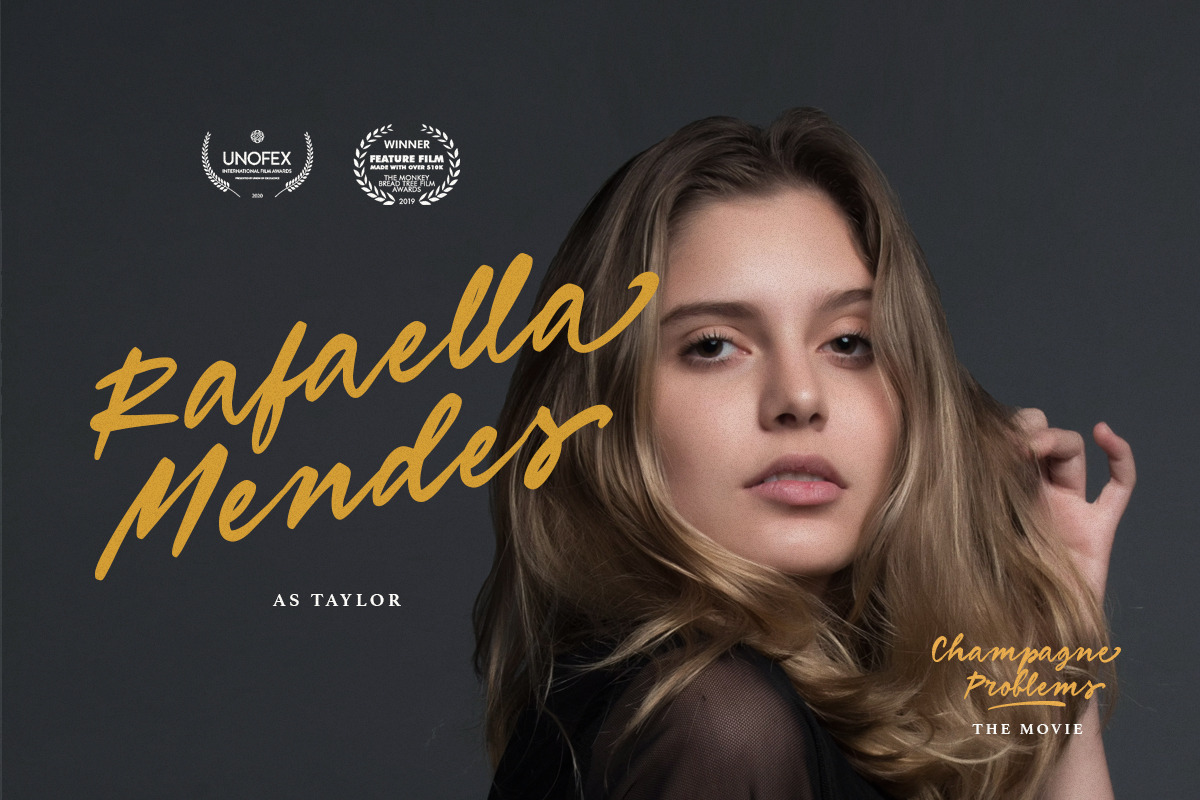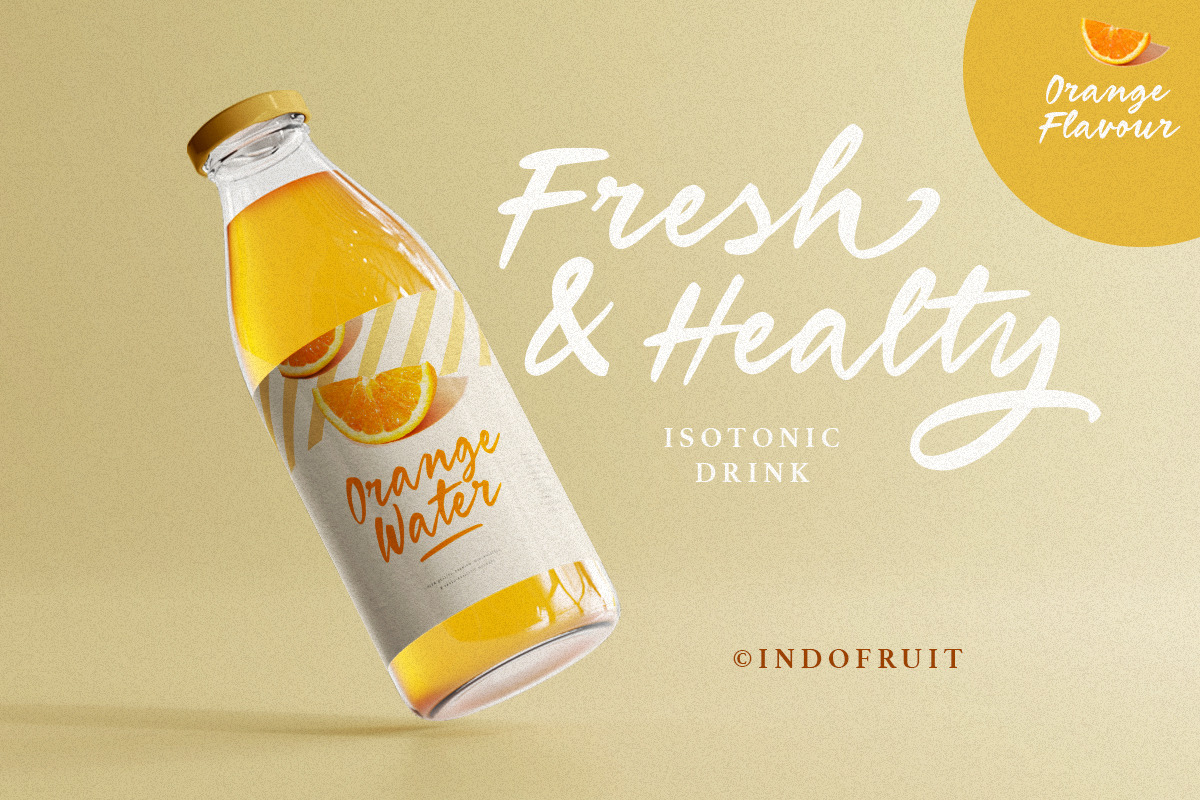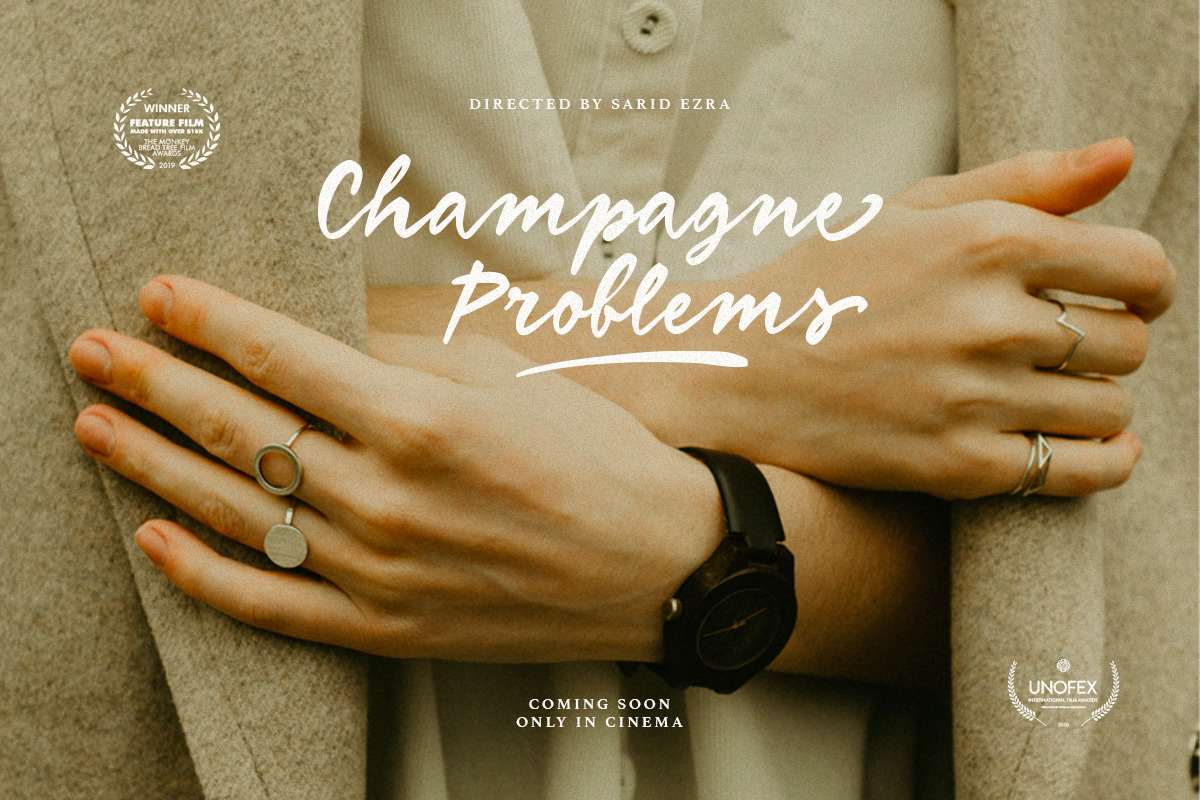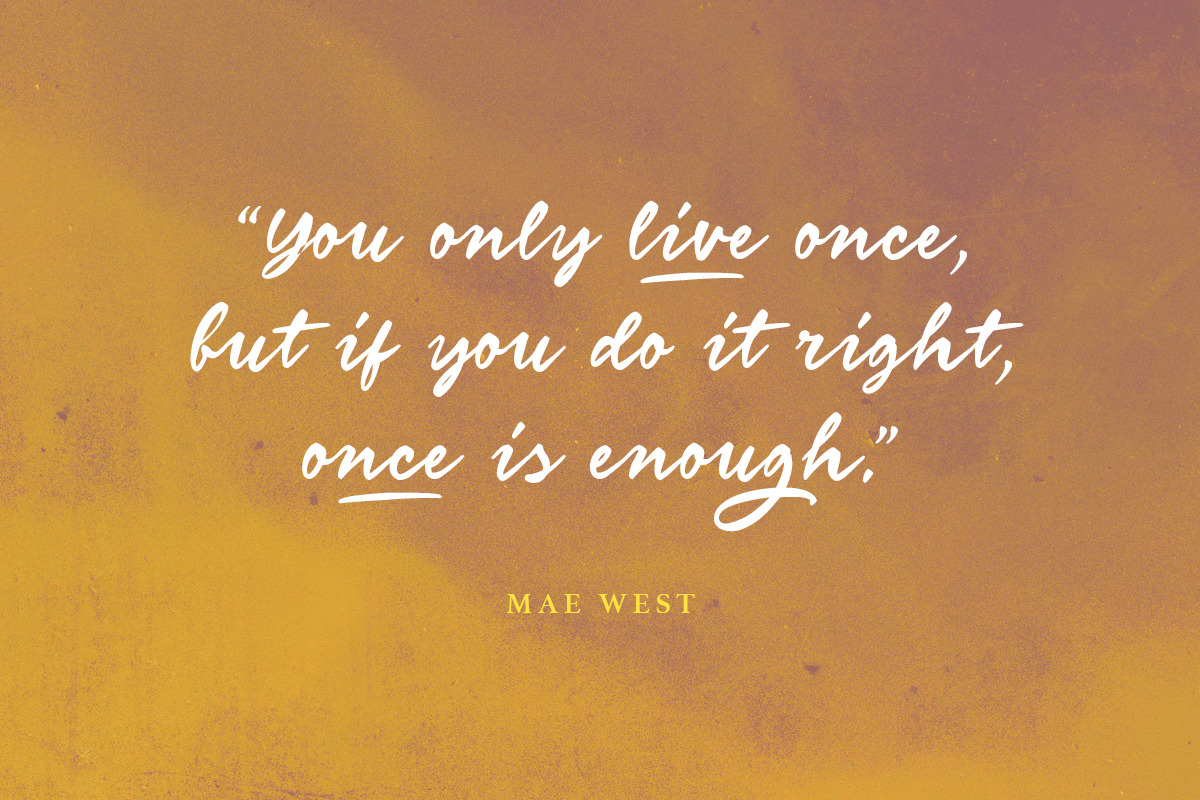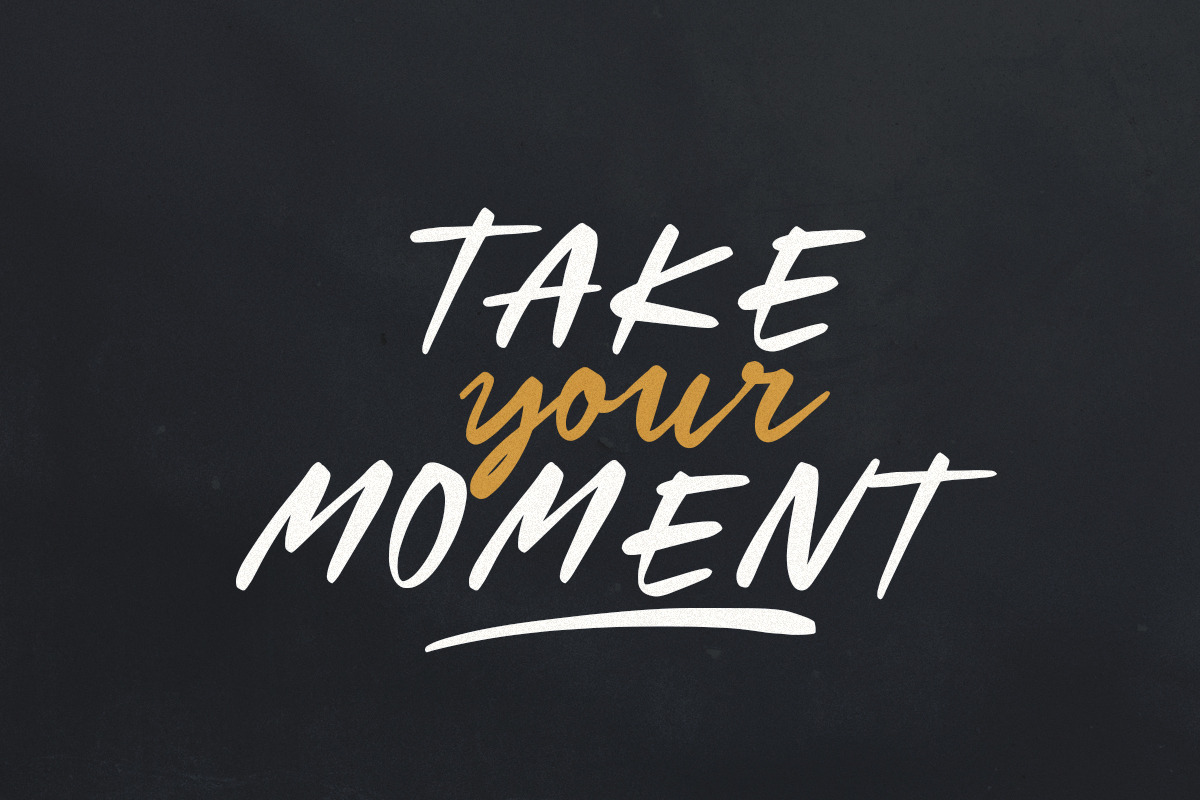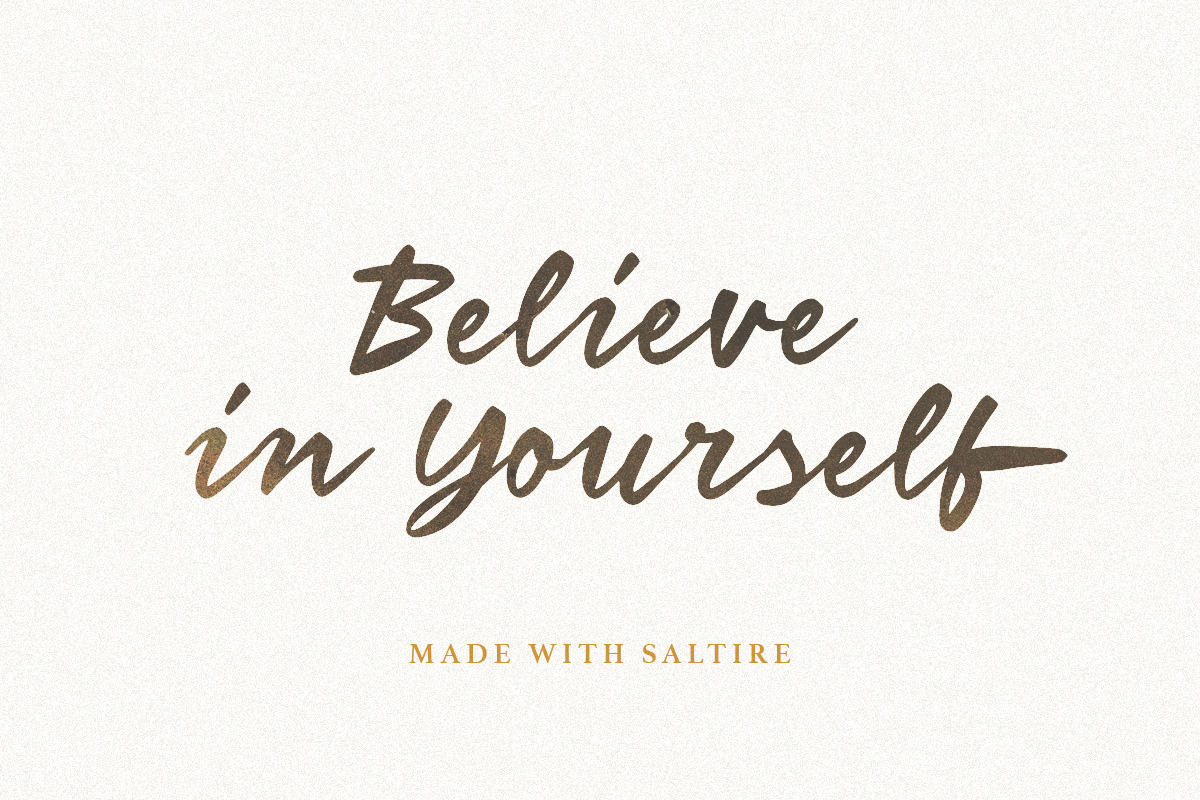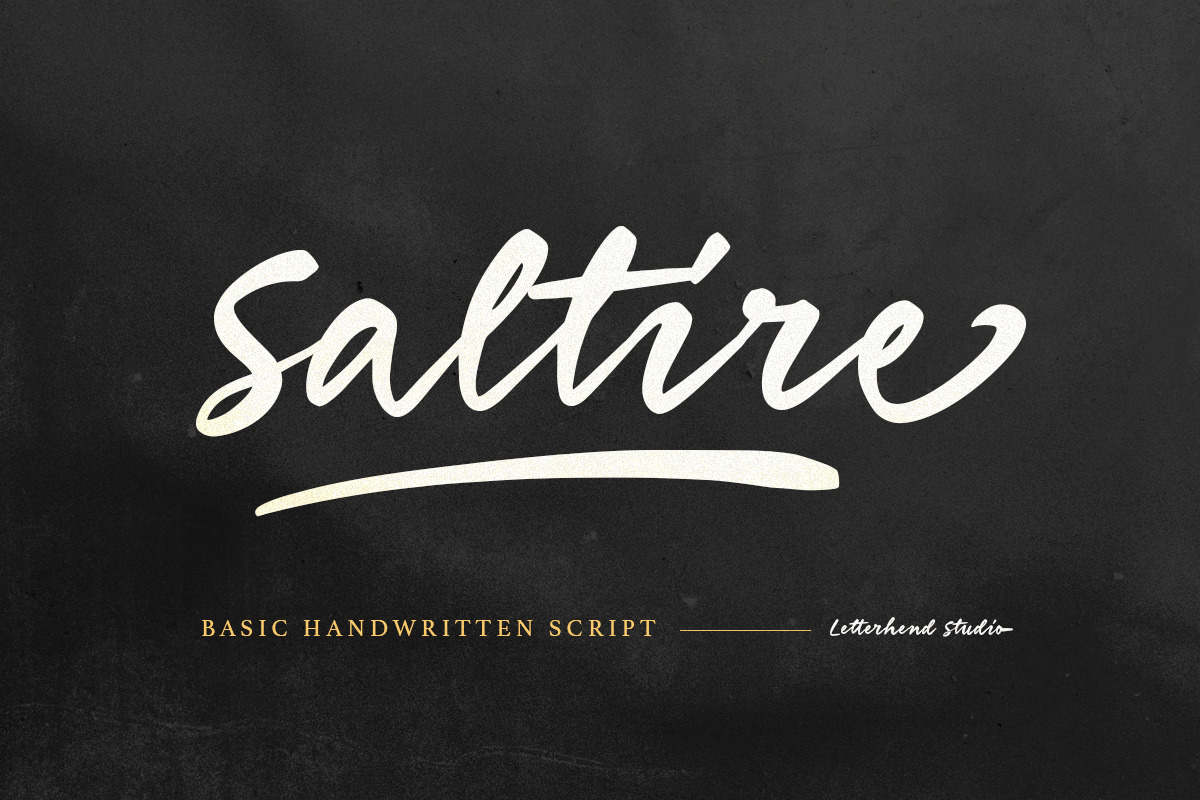
Saltire - Script font
Saltire is a basic script with modern look and feel. This type of font perfectly made to be applied especially in logo, headline, signage and the other various formal forms such as invitations, labels, logos, magazines, books, greeting / wedding cards, packaging, fashion, make up, stationery, novels, labels or any type of advertising purpose.
- alternates / swashes and ligatures